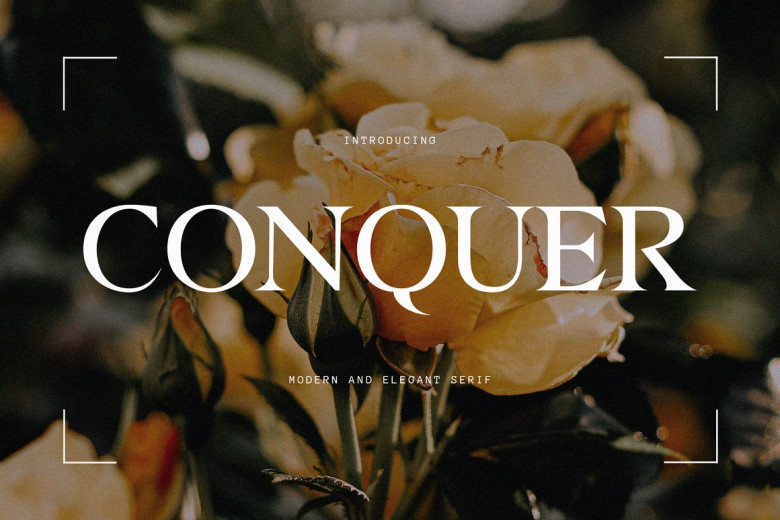
Conquer Font
Conquer is a Modern Serif. The Conquer font is a serif typeface with an elegant and modern style. It is perfect for use in titles. It is also great for writing long and short articles.
Conquer Modern Serif Font